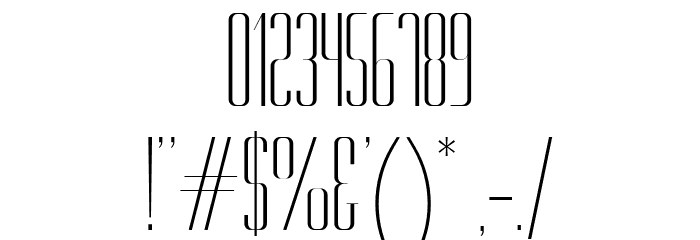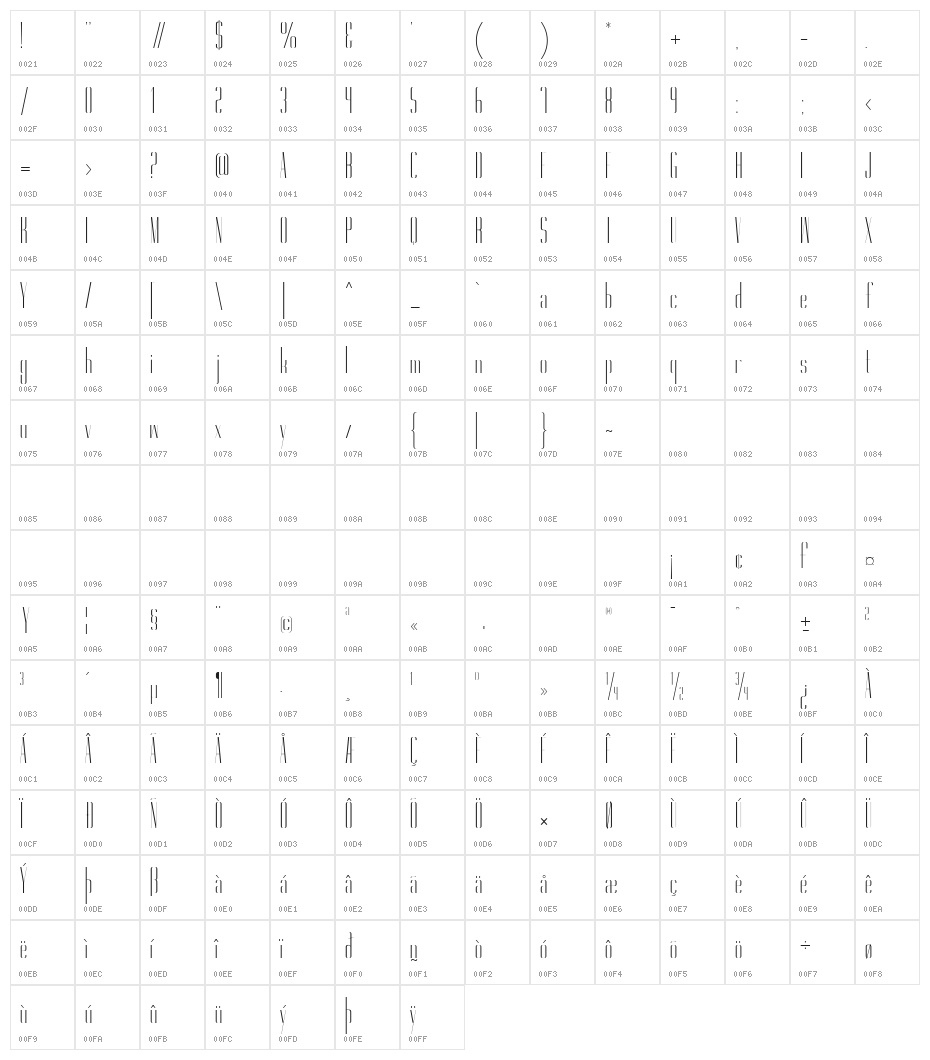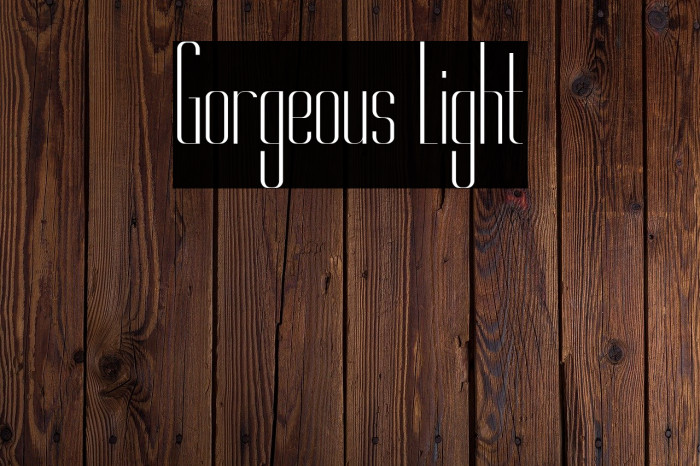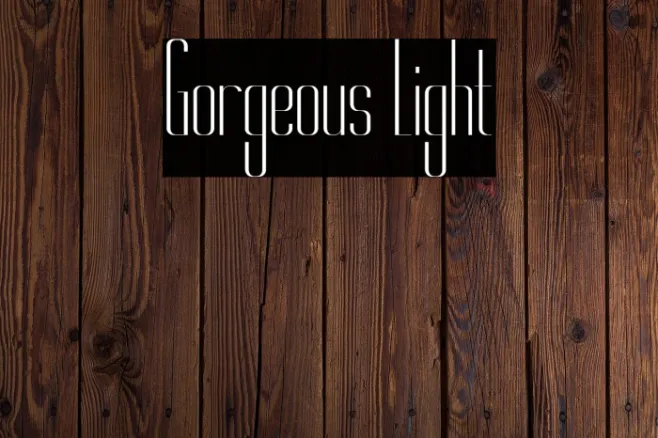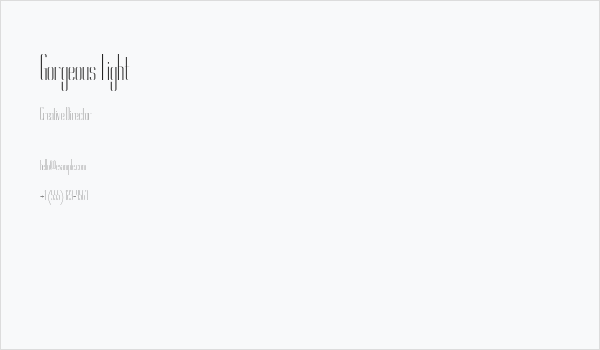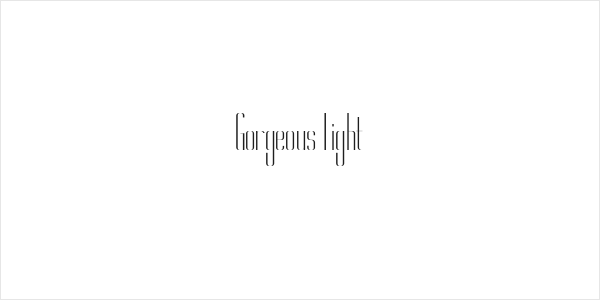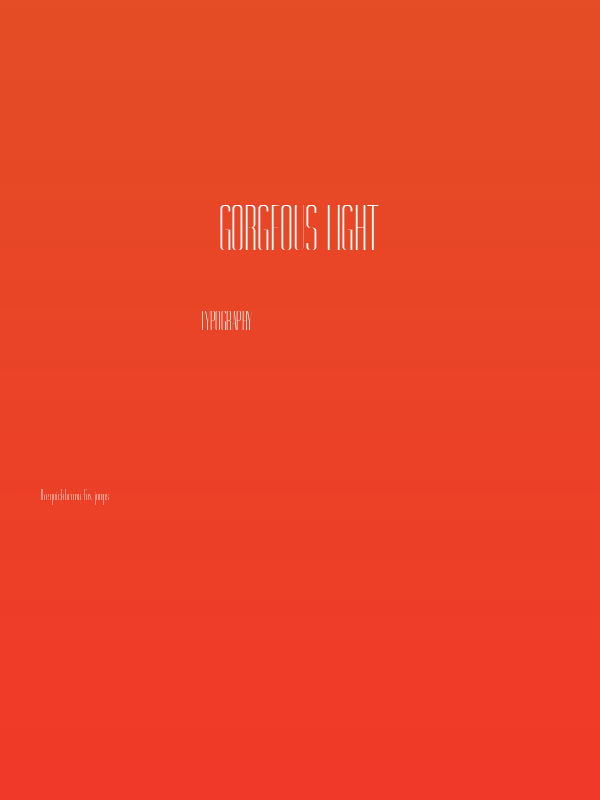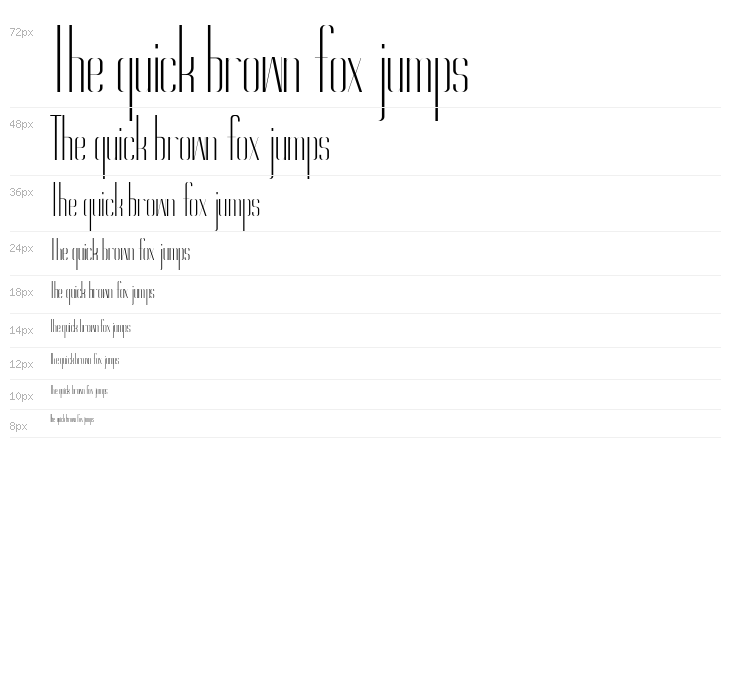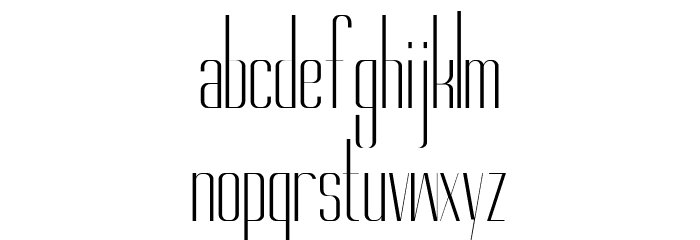
Gorgeous Light Font
Gorgeous Light Description
This typeface features an elegant and elongated design with thin, clean lines that give it a sophisticated and modern appearance. The characters are tall and narrow, with a consistent stroke width that maintains a light and airy feel. The uppercase letters are particularly elongated, while the lowercase letters maintain a similar height, creating a harmonious balance. The numerals and special characters follow the same slender and refined style, making the font suitable for a variety of applications where a touch of elegance is desired.